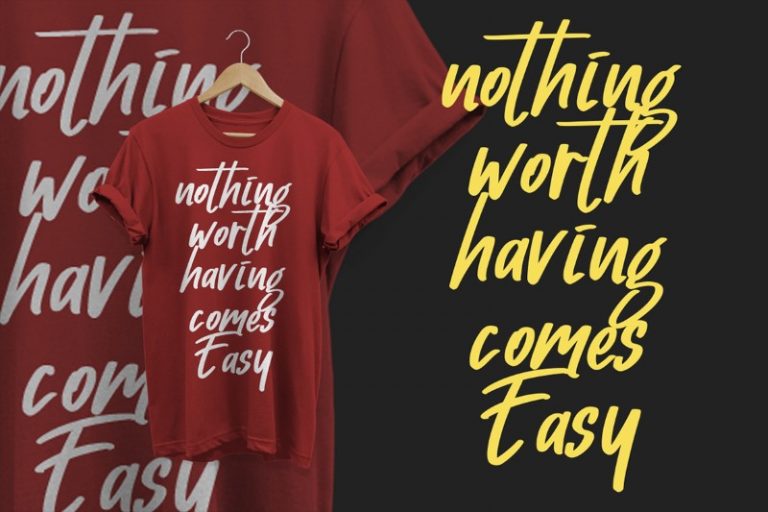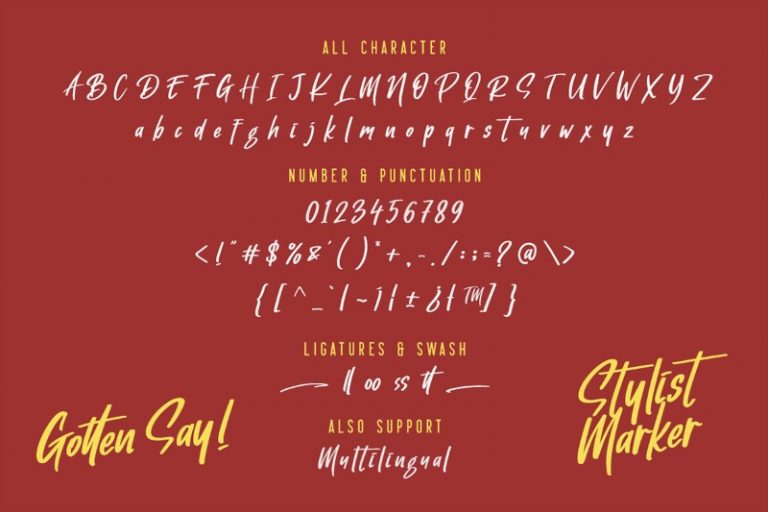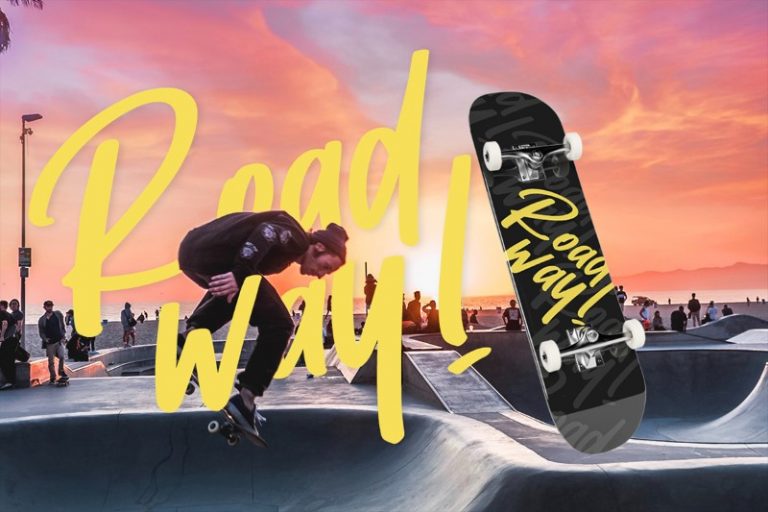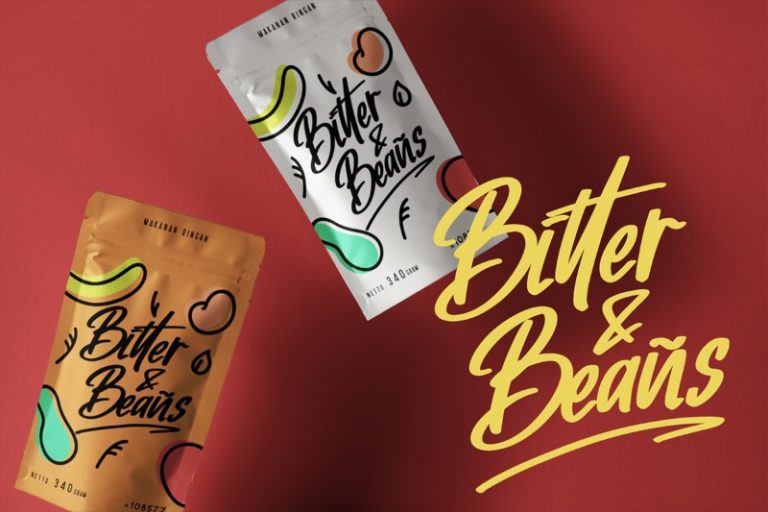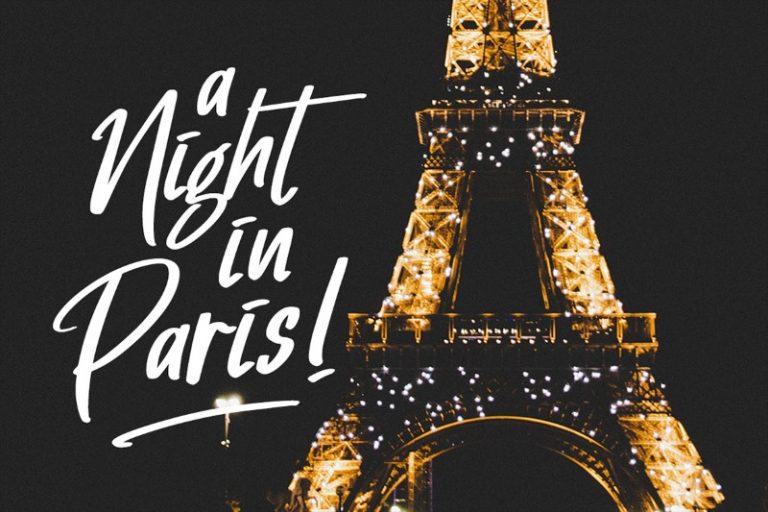
Gotten Say
Introducing Gotten Say Font. Gotten Say is a casual clean brush font . Made with naturally brush. The font will make your design more beautiful and powerful. This font is suitable for any design like branding, quotes, t-shirt printing and etc. I hope you enjoy it !! Thanks for visiting and downloading my font!
• Accents (Multilingual Characters)
• Numerals and Punctuations (OpenType Standard)